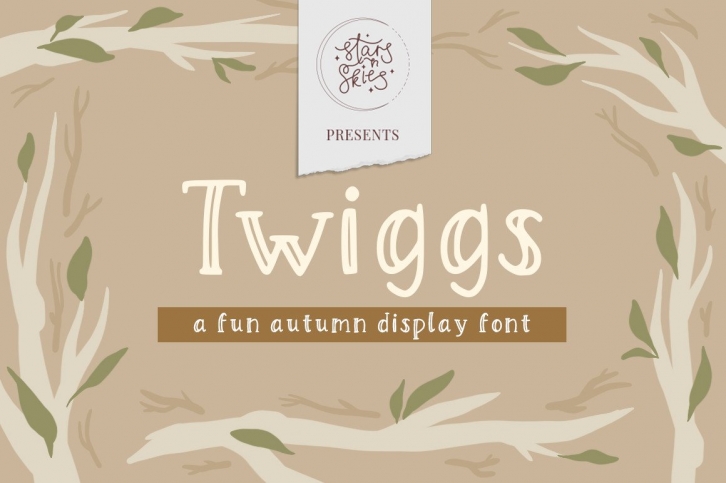
Twiggs is a whimsical and genuine display font. Expertly designed to make your creation look out of this world, this font will look gorgeous on a variety of ideas.